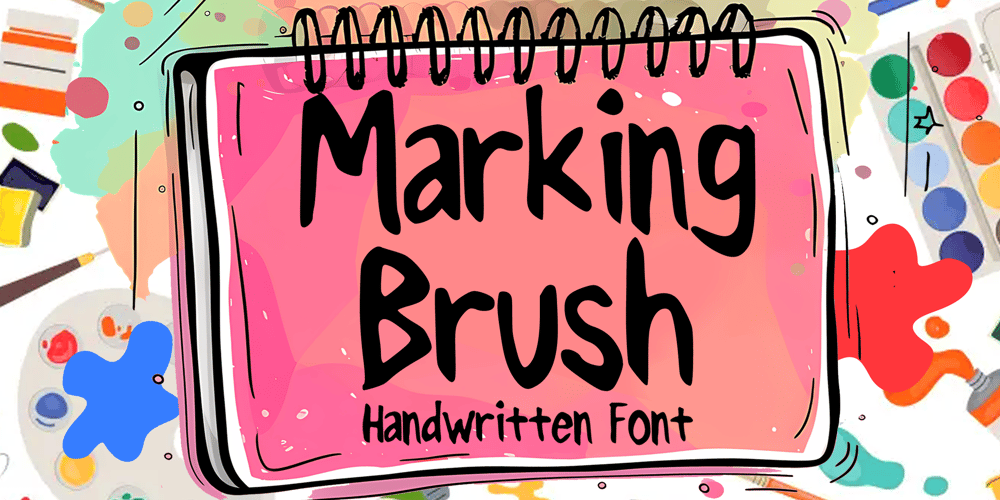
Marking Brush Font Family was designed by Gabriel Valentinus and published by Mvmet. Marking Brush contains 1 styles and family package options. Marking Brush is a playful and fun to use sign paint brush font. It will elevate a wide range of design projects to the highest level. You can use this font for many design ideas such as stickers, t-shirt designs, amazing logo design ns, magazine or book covers, comics, cartoon drawings, daily typing, and many more. This font will add a super cool touch to your designs!